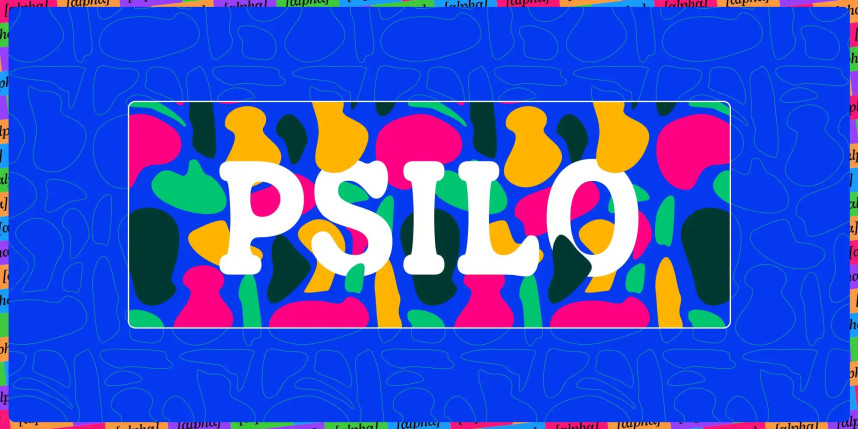
Jollyfish – Display Serif Font
Jollyfish – Display Serif Font, a bold display serif font that wiggles and waves like jelly! Its playful curves and bouncy shapes bring an irresistibly joyful energy to your designs, making every word feel alive and full of motion. Jollyfish combines chunky serif confidence with a jiggly twist — bold, quirky, and absolutely delightful.
Packed with complete alphabets, numerals, and basic punctuation, Jollyfish is perfect for creative projects that deserve a splash of fun — from posters and greeting cards to logos, packaging, and more.